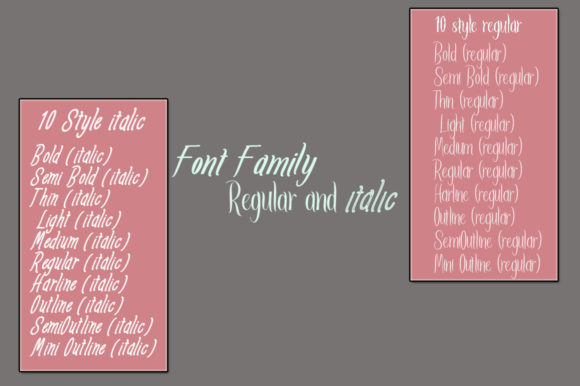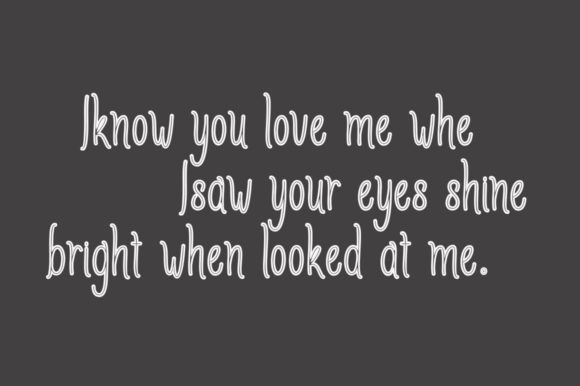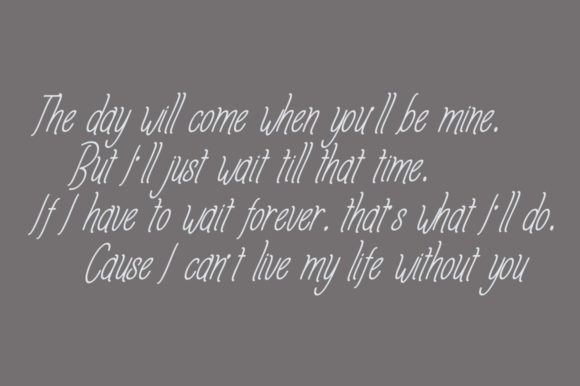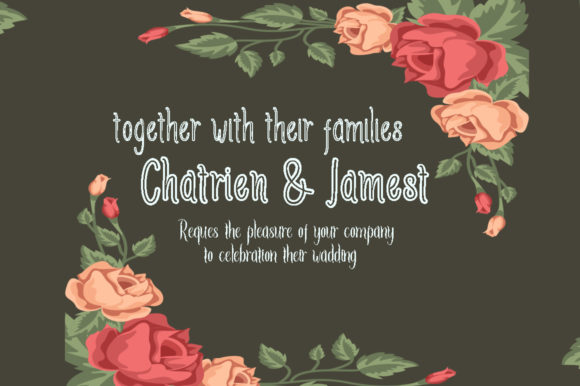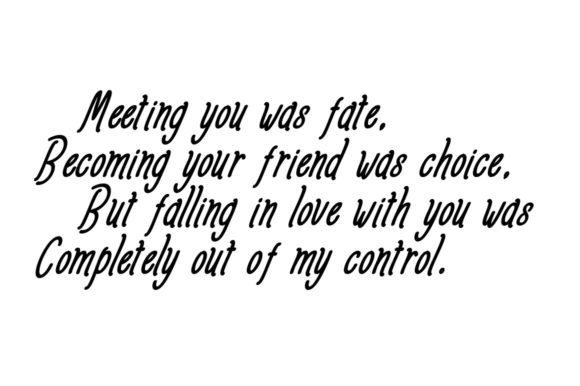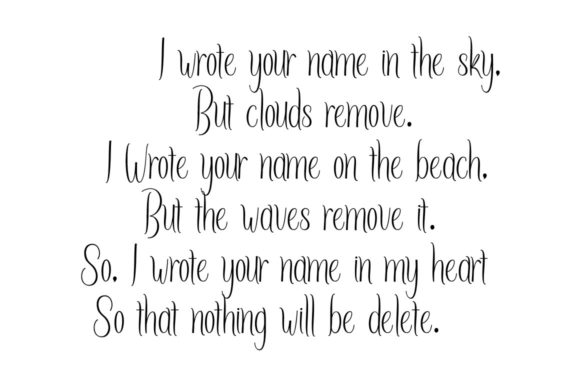
Amlight Family Font: The Perfect Choice for Your Design Needs
Are you a designer or crafter looking for a font that combines elegance and readability? Look no further than the Amlight Family Font. This lovely handwritten font family boasts a firm structure and a simple character, making it perfect for a wide range of design applications. In this article, we’ll explore the features and benefits of Amlight, and why it’s an excellent choice for your next project.
What is Amlight Family Font?
Amlight is a beautifully crafted handwritten font family designed to provide a comfortable reading experience. Its firm structure and simple character make it an ideal choice for official media, such as banners, magazines, newspapers, books, and more. Whether you’re working on a professional project or a personal craft, Amlight is a versatile font that can help you achieve your design goals.
Key Features of Amlight Family Font
- Handwritten style: Amlight’s handwritten style gives it a personal and unique touch, making it perfect for designs that require a human touch.
- Firm structure: The font’s firm structure ensures that it’s easy to read, even at smaller sizes.
- Simple character: Amlight’s simple character design makes it easy to use in a variety of contexts, from formal to informal.
- Comfortable reading experience: Amlight is designed to provide a comfortable reading experience, making it perfect for long-form content.
Benefits of Using Amlight Family Font
So, why choose Amlight Family Font for your design project? Here are just a few benefits:
- Versatility: Amlight can be used in a wide range of design applications, from print to digital media.
- Elegance: Amlight’s handwritten style adds a touch of elegance to any design.
- Readability: The font’s firm structure and simple character ensure that it’s easy to read, even for long-form content.
- Uniqueness: Amlight’s unique handwritten style sets it apart from more traditional fonts.
Who Can Benefit from Amlight Family Font?
Amlight Family Font is perfect for:
- Graphic designers: Amlight is a great choice for designers working on print or digital projects.
- Crafters: Amlight’s unique style makes it perfect for crafters working on handmade projects.
- Publishers: Amlight’s readability and elegance make it a great choice for publishers working on books, magazines, and newspapers.
- Marketers: Amlight’s versatility and uniqueness make it a great choice for marketers looking to create eye-catching designs.
How to Use Amlight Family Font
Using Amlight Family Font is easy. Here are a few tips:
- Pair it with other fonts: Amlight pairs well with other fonts, so feel free to experiment with different combinations.
- Use it for headings and body text: Amlight’s readability makes it perfect for both headings and body text.
- Experiment with different sizes: Amlight’s firm structure ensures that it remains readable even at smaller sizes.
In conclusion, Amlight Family Font is a versatile and elegant font that’s perfect for a wide range of design applications. Its firm structure, simple character, and handwritten style make it a great choice for designers and crafters looking to add a touch of elegance to their designs. Whether you’re working on a professional project or a personal craft, Amlight is a great choice. So why not give it a try today?